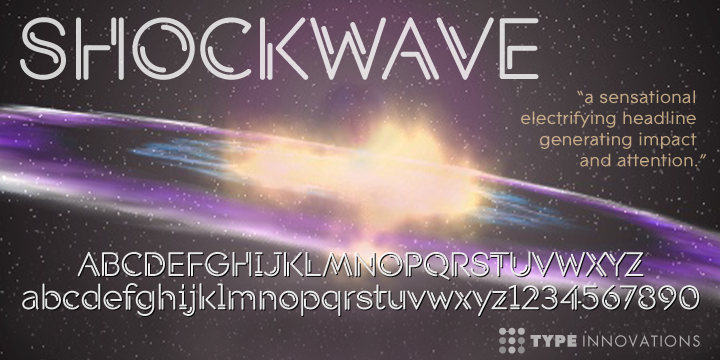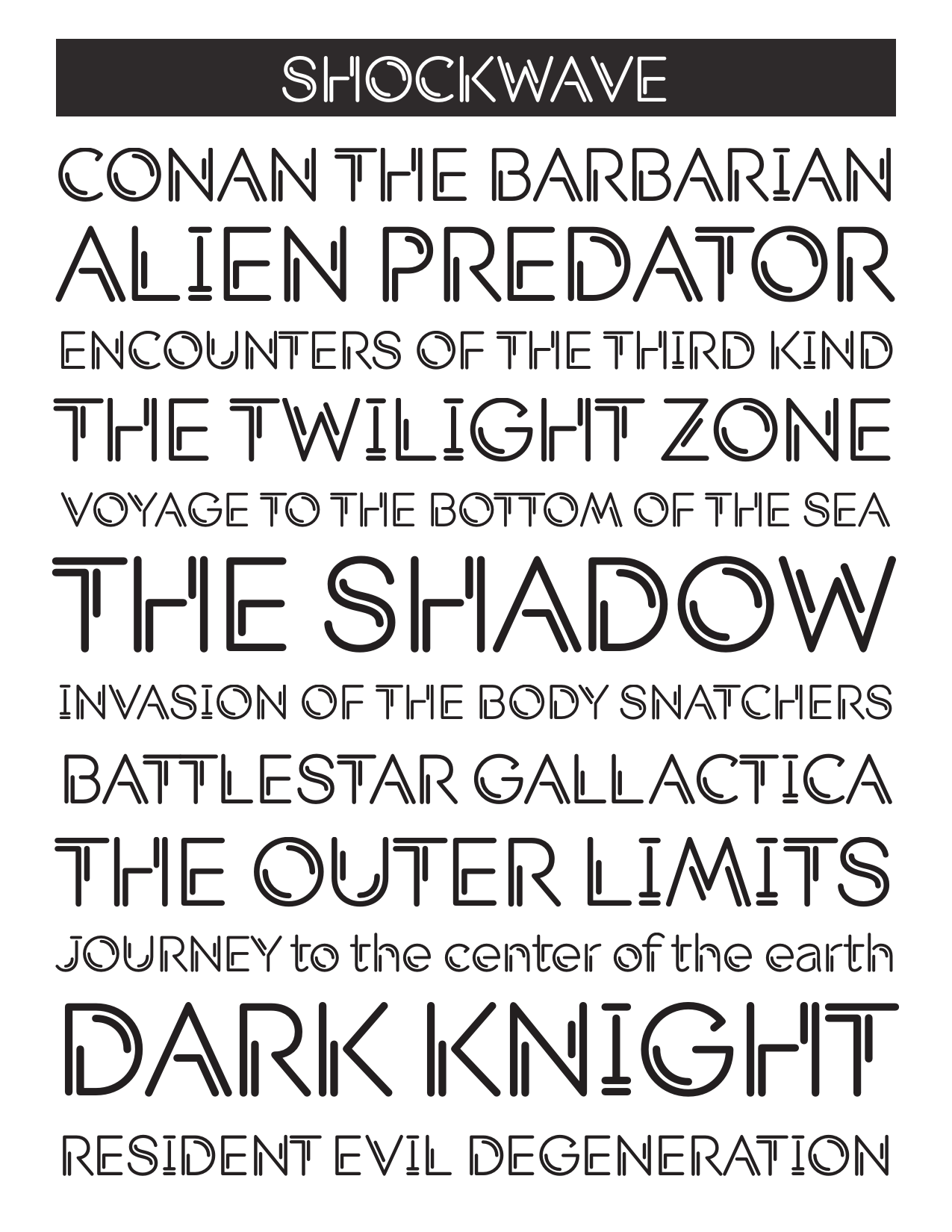
Shockwave
Introducing Shockwave, I'm always experimenting with new ideas for display fonts. I took the inside counter of a capital 'O', divided it into quarters, and applied an outline stroke to all the elements. By removing two quarters of the inside counter I had the beginnings for an interesting new design. Of course, the hard part was getting all the other letters in the alphabet to work well together using this approach.
It's often a labor of love trying to shape an idea into a new typeface. I find the entire process stimulating and rewarding. Now, on to the next new font concept!